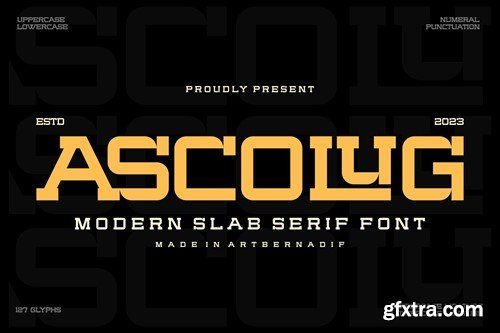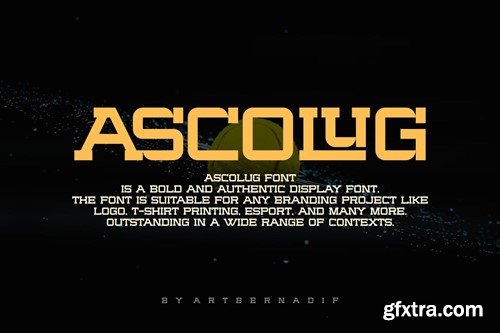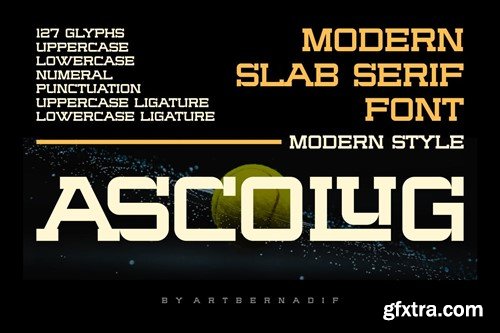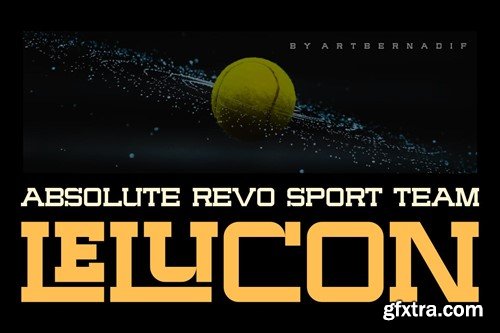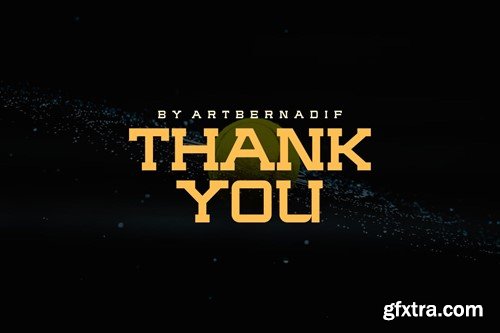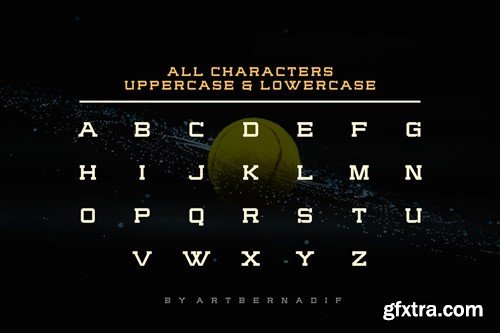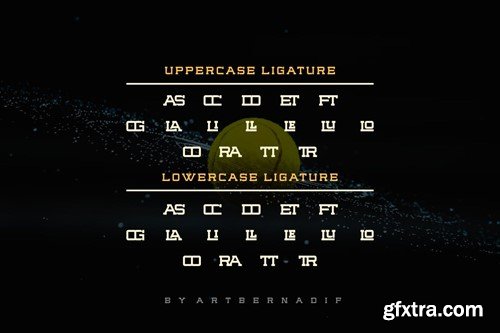
阿斯科格 - 斜面 serif 字体 K8RQVG9
Ascolug - Slab Serif Font K8RQVG9
Ascolug - Slab Serif Font
Introducing our new product Ascolug Font - Modern Font
Ascolug Font- Modern Font is a bold and authentic display font. The font is suitable for any branding project like logo, t-shirt printing, esport, and many more. outstanding in a wide range of contexts.